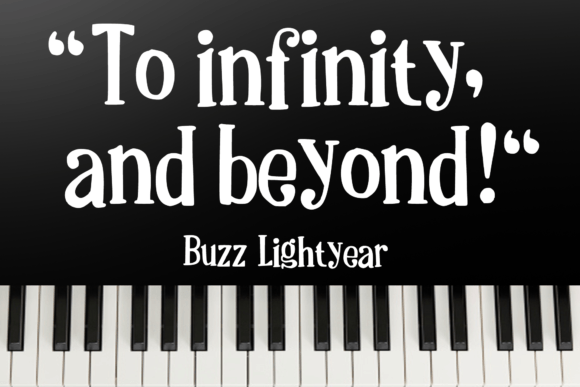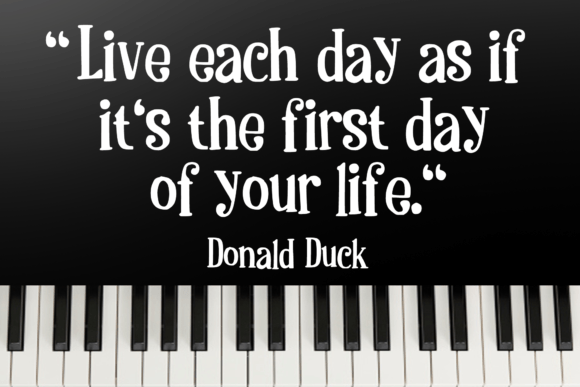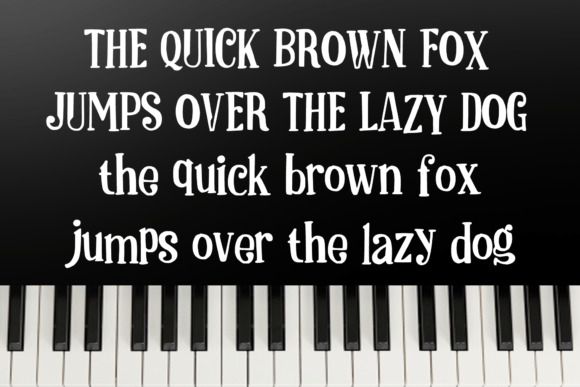
Introduction to Piano Font
Piano is a beautiful musical-themed handwritten font.
You can use it for anything ranging from t-shirts, kids’ book designs, and greeting cards to stickers and posters, or anything that needs a casual touch Fall in love with its incredibly versatile style and use it to create lovely designs.
Key Features of Piano Font